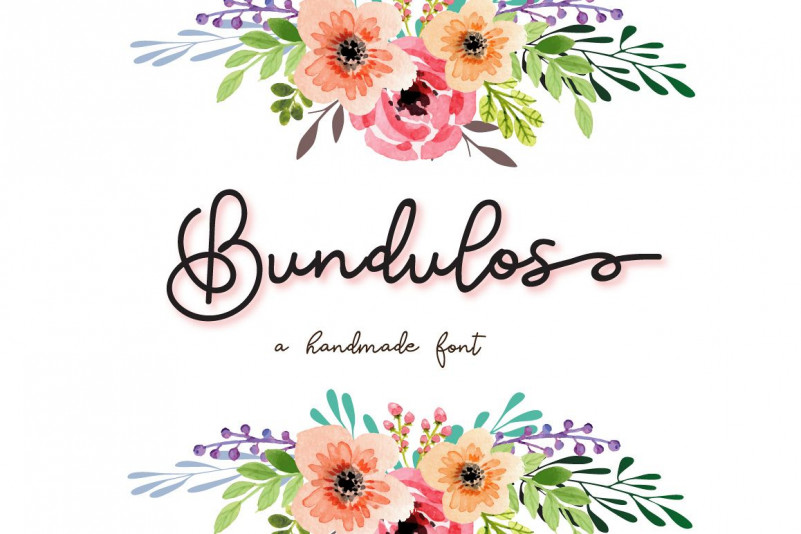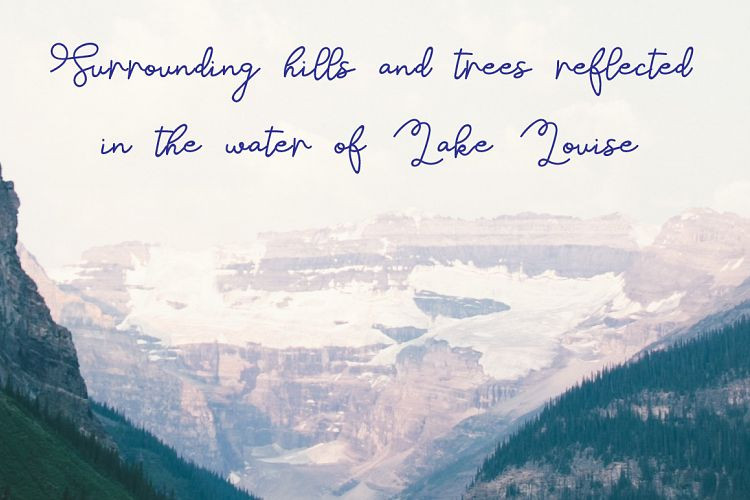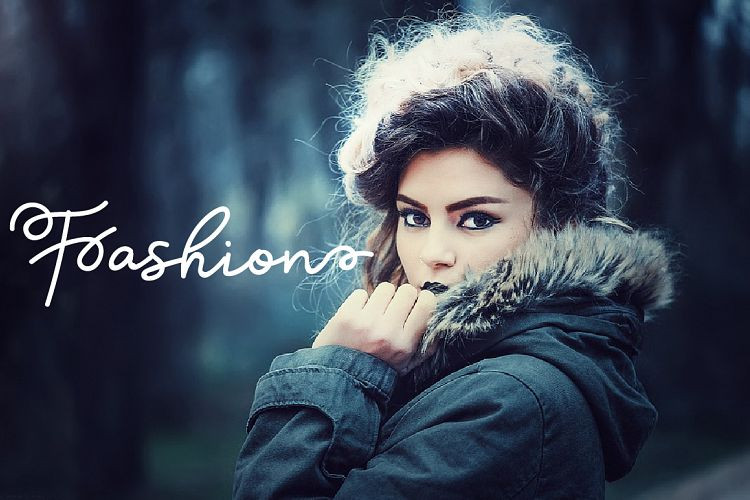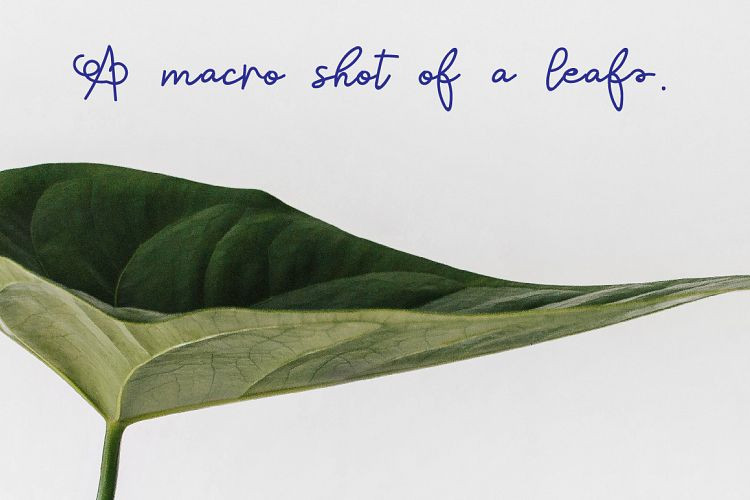
Bundulos Script Font
Bundulos is a modern script font with tones of alternates, every single letters have been carefully crafted to make your text looks beautiful. With modern script style this font will perfect for many different project ex: quotes, blog header, poster, wedding, branding, logo, fashion, apparel, letter, invitation, stationery, etc.